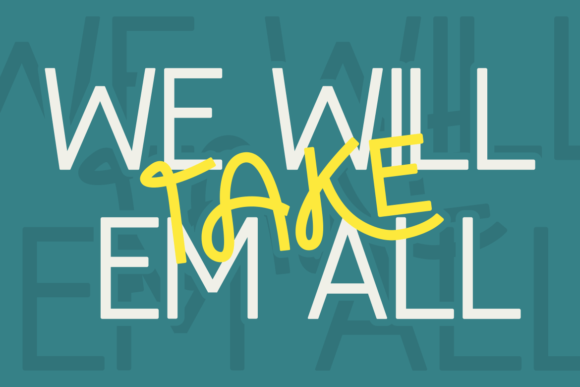
Introducing Conventri – Modern Font: Elevate Your Designs with Elegance and Playfulness
In the world of typography, fonts play a crucial role in defining the aesthetic and tone of any creative project. Among the myriad of typefaces available, Conventri Font stands out as a uniquely styled display typeface that seamlessly blends elegance and modernity with a playful twist. This sans serif font is designed to capture attention and leave a lasting impression, making it an ideal choice for designers looking to elevate their work.
Unique Features of Conventri Font
Conventri is characterized by its curly cues integrated into each letter, offering a fresh and lively look that enhances any creative project. The font is available in two styles, providing versatility for various design applications. One of the standout features of Conventri is its inclusion of ligatures, which add a touch of sophistication and elegance to any text.
- Curly Cues: Each letter in Conventri features curly cues that give the font its distinctive playful and elegant look.
- Two Styles: Conventri is available in two styles, offering flexibility for different design needs.
- Ligatures: The font includes ligatures that enhance the flow and aesthetic appeal of the text.
Ideal for a Wide Range of Design Applications
Conventri is a versatile font that can be used in a variety of design projects. Whether you are designing logos, branding materials, or crafting distinctive titles, Conventri brings a unique character and modern elegance that can transform any text into a piece of art.
Logo Design: The unique curly cues and elegant lines of Conventri make it perfect for logo design, helping brands stand out with a modern and sophisticated look.
Branding Materials: From business cards to letterheads, Conventri adds a touch of elegance and professionalism to all branding materials.
Movie Titles and Book Covers: The font’s distinctive style makes it ideal for movie titles and book covers, adding a touch of glamour and sophistication.
Magazines and Editorial Design: Conventri’s readability and ornate details make it a great choice for magazine headings and editorial design.
A Practical Choice for Designers
Conventri is not just about aesthetics; it’s also a practical choice for designers looking to make a statement. Its clean, modern lines ensure readability while its ornate details captivate the viewer’s attention.
Readability: Despite its ornate details, Conventri maintains high readability, making it suitable for a wide range of applications.
Attention-Grabbing: The unique curly cues and ligatures in Conventri are designed to capture attention and leave a lasting impression.
Ideal for Both Commercial and Creative Endeavors
Conventri is versatile enough for both commercial and creative endeavors. Its unique style and elegant curvature make it perfect for:
- Advertising: Use Conventri to create eye-catching advertisements that stand out.
- Packaging: Add a touch of elegance and sophistication to product packaging.
- Digital Media: Conventri is ideal for website headings, social media graphics, and digital marketing materials.
Why Choose Conventri?
If you’re looking for a font that marries modern design with elegant curvature, Conventri is your go-to choice. Here are a few reasons why:
- Unique Design: Conventri’s curly cues and ligatures offer a unique design that sets it apart from other fonts.
- Versatility: Available in two styles and featuring ligatures, Conventri is versatile enough for a wide range of applications.
- Elegance and Modernity: Conventri combines elegance and modernity, making it perfect for designers looking to create sophisticated and contemporary designs.
In conclusion, Conventri Font is a uniquely styled display typeface that brings a fresh and lively look to any creative project. Its combination of elegance, modernity, and playful curly cues makes it an ideal choice for designers looking to make a statement. With its versatility, readability, and attention-grabbing details, Conventri is perfect for a wide range of design applications. Whether you are working on a commercial project or a creative endeavor, Conventri is guaranteed to elevate your designs and leave a lasting impression.